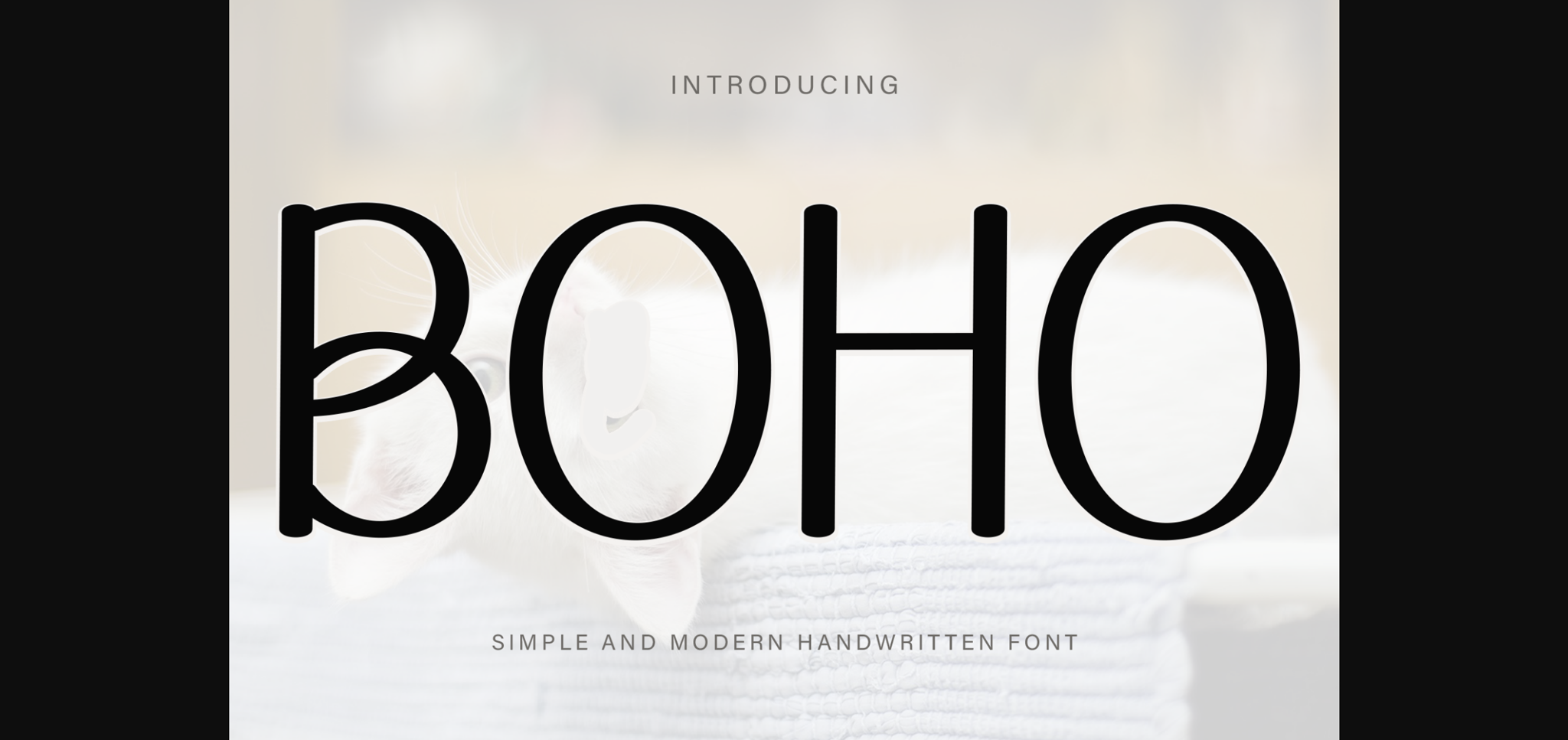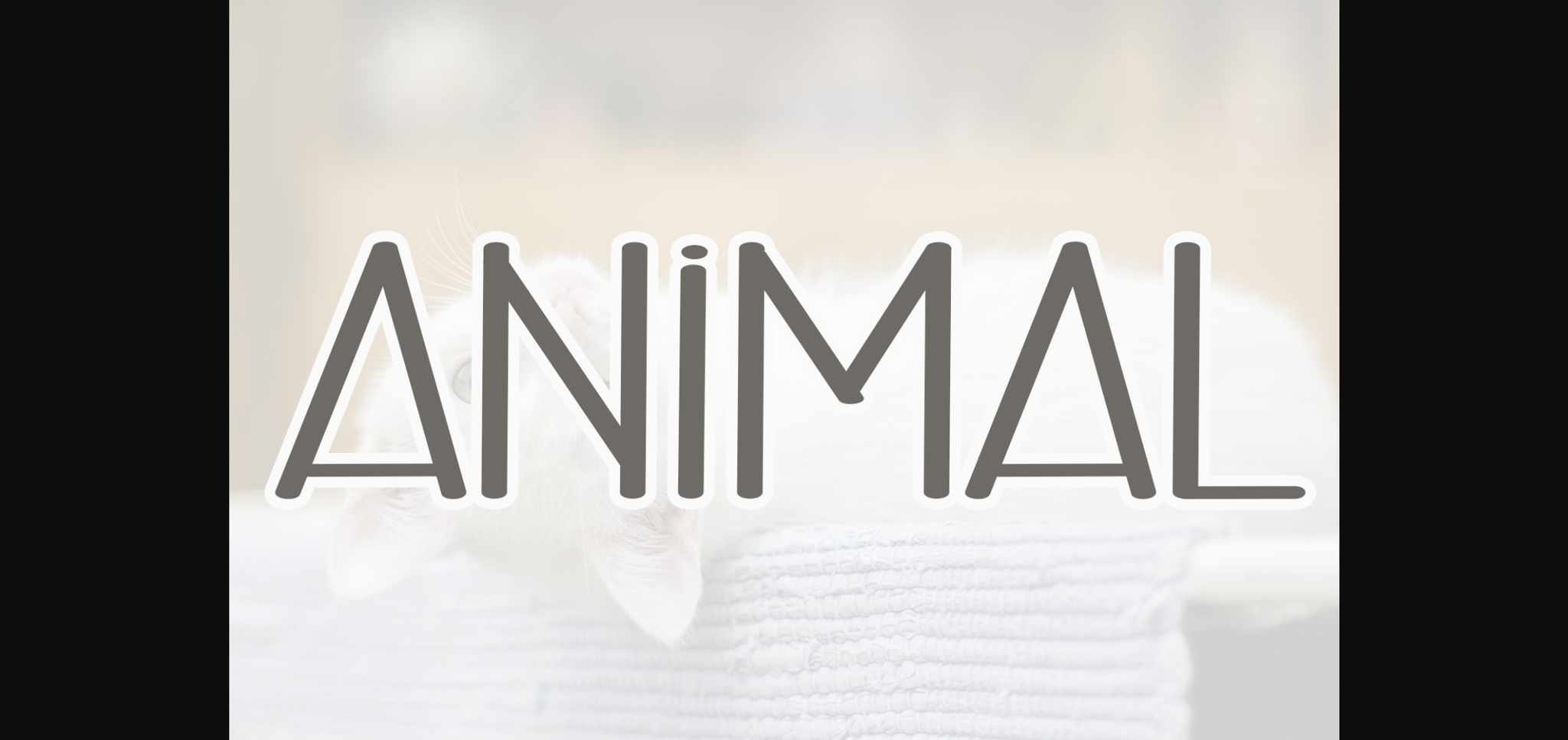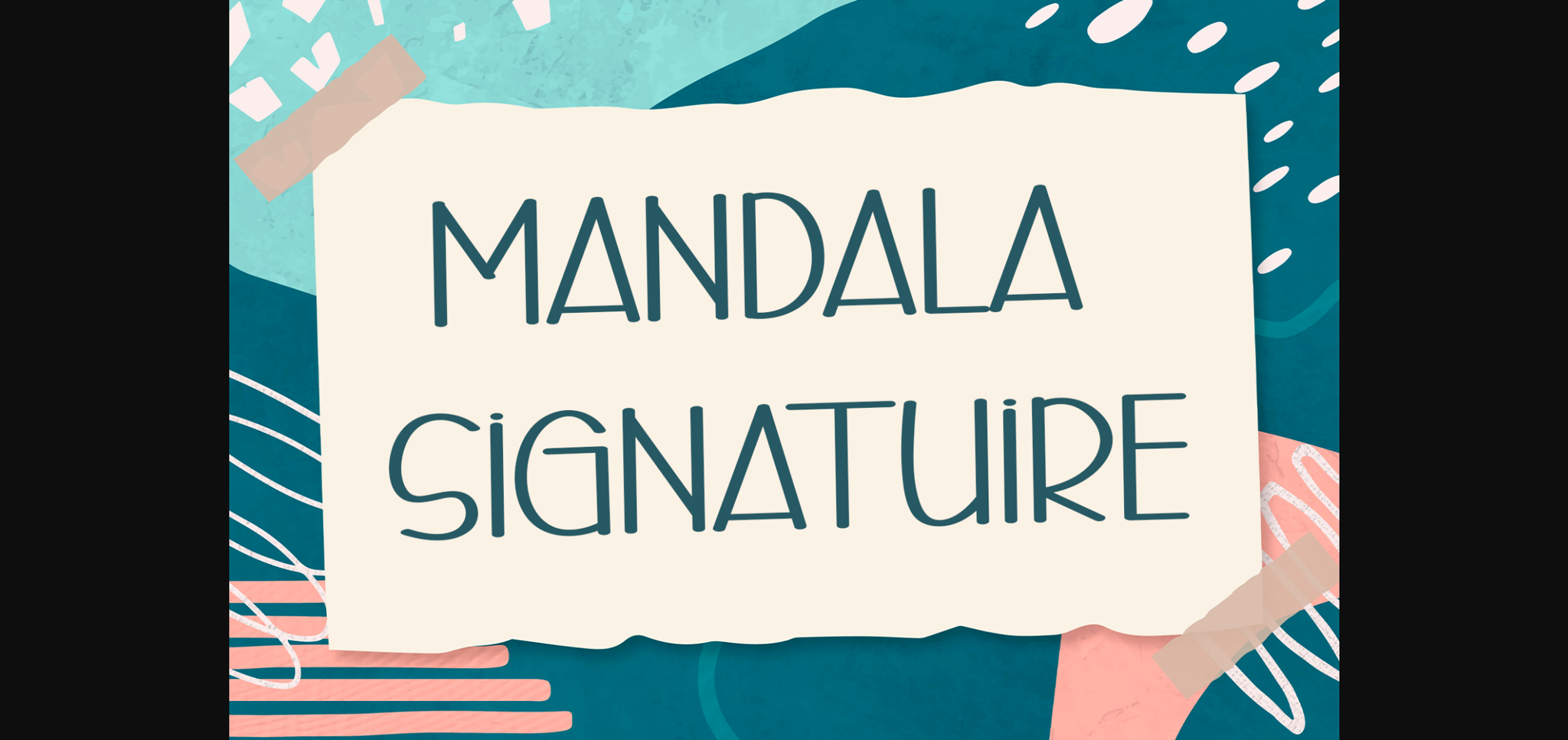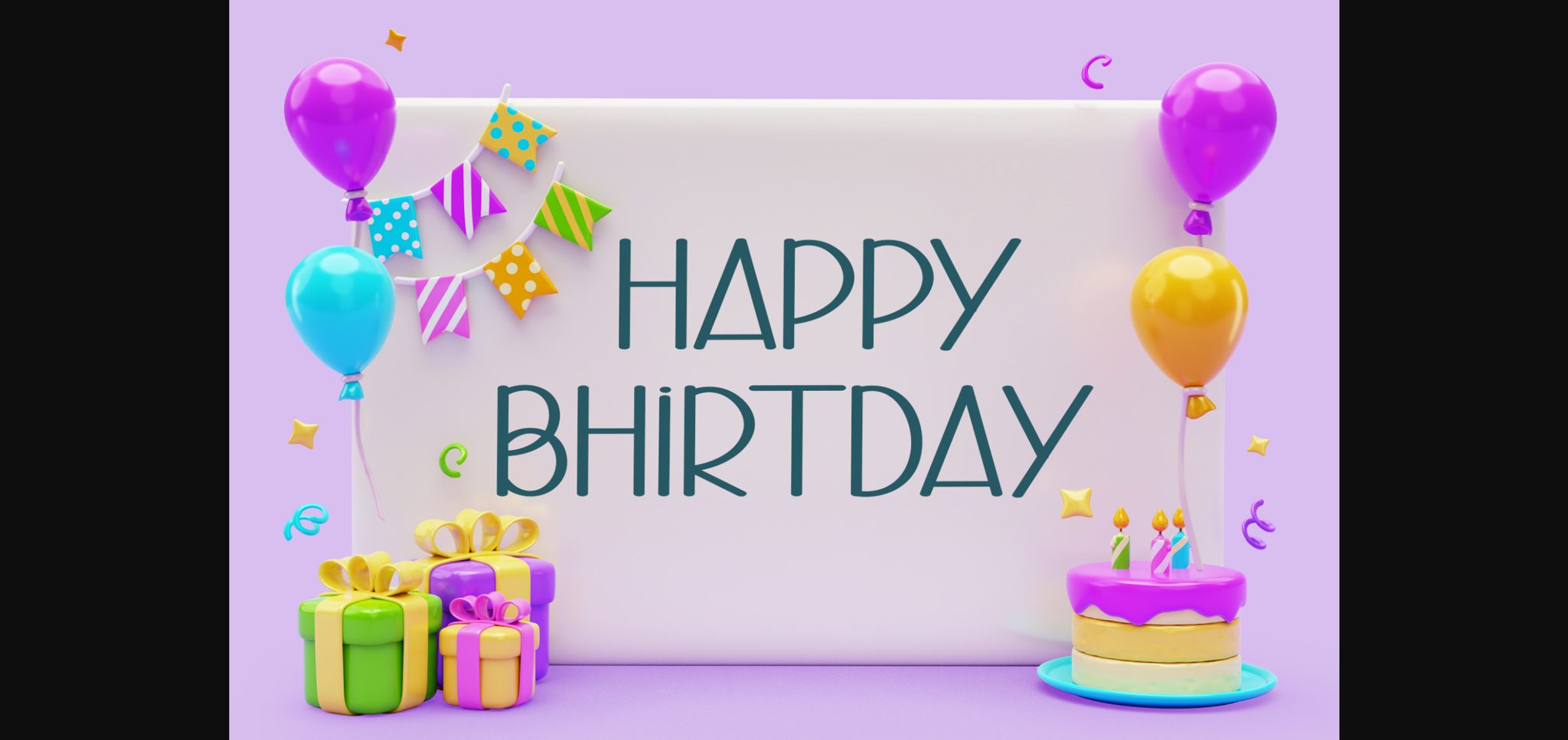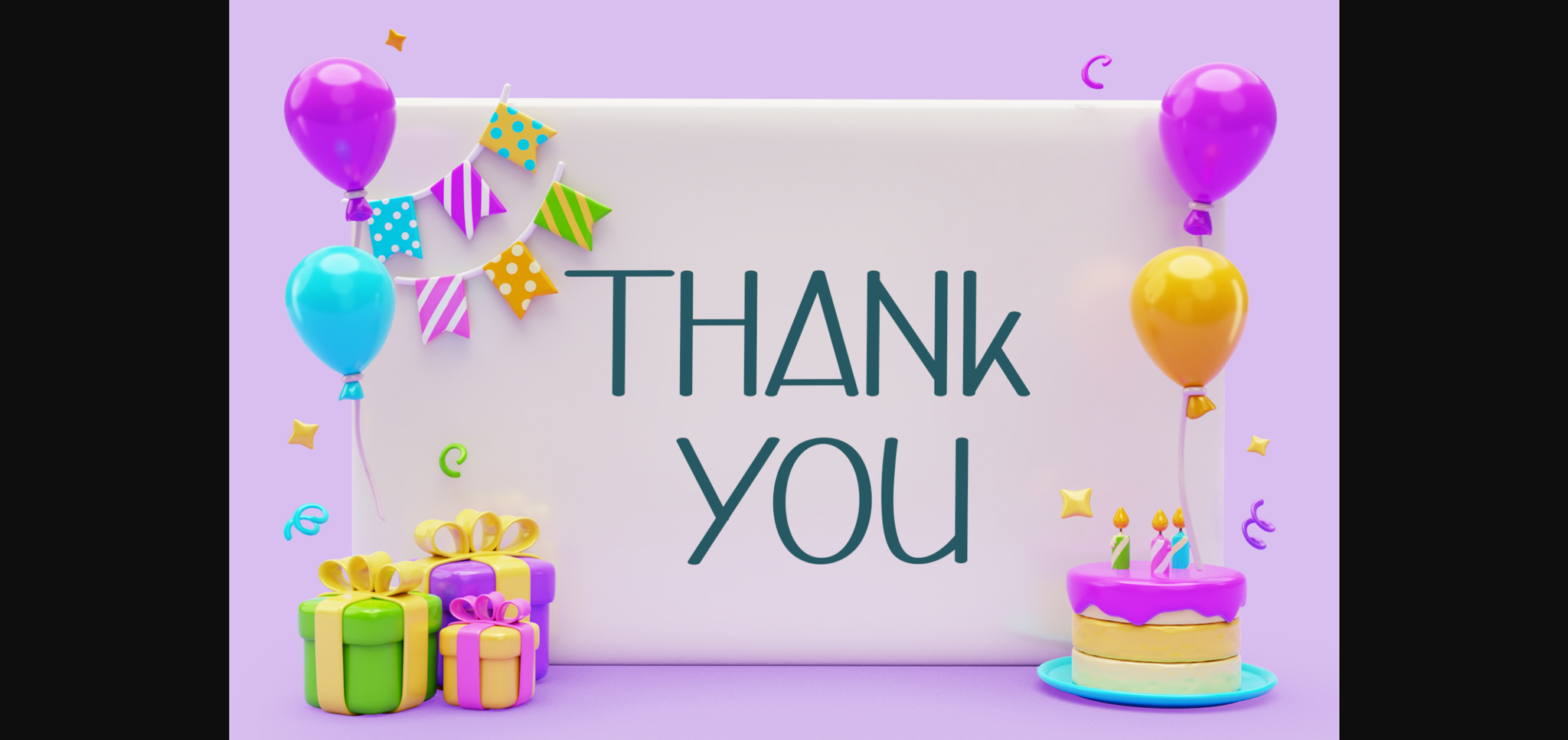
HomeSans Serif FontsBoho Font Sans Serif Fonts Boho Font FacebookXPinterestWhatsApp 1 of 7 ... Boho Font Poster 2... Boho Font Poster 3... Boho Font Poster 4... Boho Font Poster 5... Boho Font Poster 6... Boho Font Poster 7... About Boho Font Boho is a sweet and friendly sans-serif font. Cute and fun, this font is ideal for writing wedding invitations, cards, or any other design that might need a nice touch! DOWNLOAD NOW People also explored Squariess Nitaya Lawrence Signature Font Ginger Ale Font Piledrive Walts Font Baby Sunday Font Osram Font Doxent Font Tropical Font 371 0 TagsBohoBoho Font Previous articleMogha FontNext articlePlayful Present Font LEAVE A REPLY Cancel reply Comment: Please enter your comment! Name:* Please enter your name here Email:* You have entered an incorrect email address! Please enter your email address here Website: Save my name, email, and website in this browser for the next time I comment. Personal Use Free Hunting Font Personal Use Free Read more about this font Hello Ketta Personal Use Free Read more about this font Knucklehead Personal Use Free Read more about this font Aseline Personal Use Free Read more about this font BLOG How to Cut Any Font on Cricut: Convert a Font to SVG (Free) Turn any font into a clean SVG so it cuts crisp on Cricut - a quick 3-step workflow using a free font-to-SVG tool. Where to Buy American Fonts Online in 2024 Free vs Paid Fonts: Why Investing in Premium Fonts Is Worth It Top 7 Google Fonts Alternatives for Faster and Privacy-Friendly Web Design (2025)